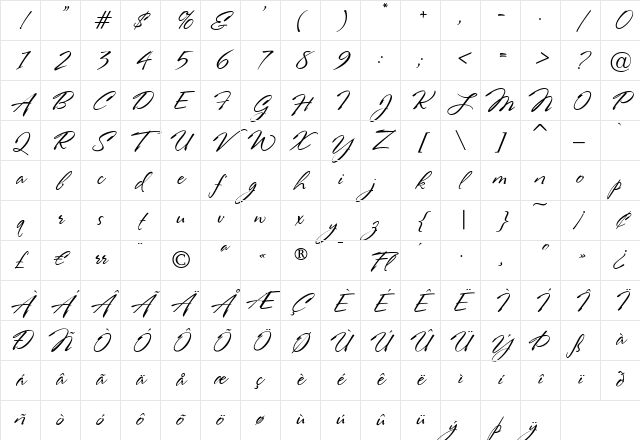
Stephanie Marie JF Regular Free Font
Stephanie Marie JF Regular
Design Context for Stephanie Marie JF
Stephanie Marie JF is a composed and adaptable typeface that performs quietly and consistently across a wide range of design contexts.